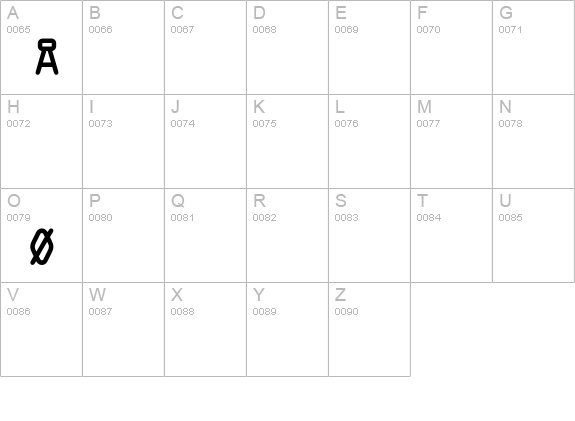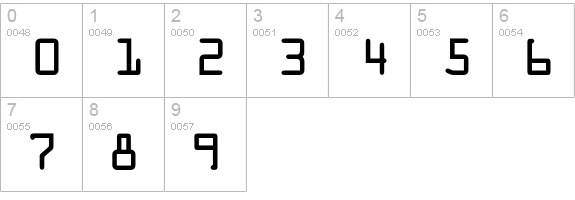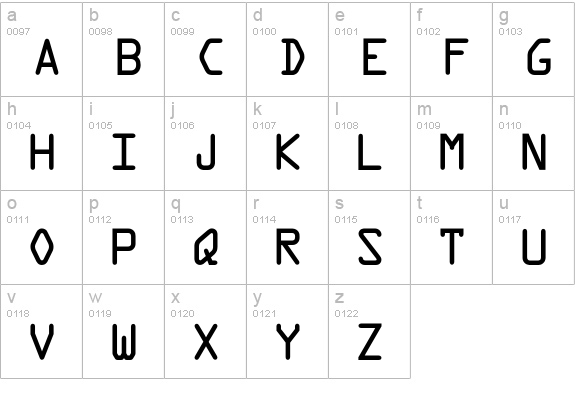
The OCR A, CMC 7, MICR B 13 font is a versatile and highly legible typeface designed specifically for optical character recognition and magnetic ink character recognition purposes. It features clean lines and uniform spacing, making it ideal for applications requiring accurate and reliable character recognition. This font is perfect for use in banking and financial institutions where MICR encoding is essential for processing checks and other financial documents. What's even better is that this font is available for free download at FontsMarket.com! Simply visit the website and get access to this high-quality font at no cost. Don't miss out on the opportunity to enhance your projects with this professional and functional font. Download the OCR A, CMC 7, MICR B 13 font today and take your design to the next level!